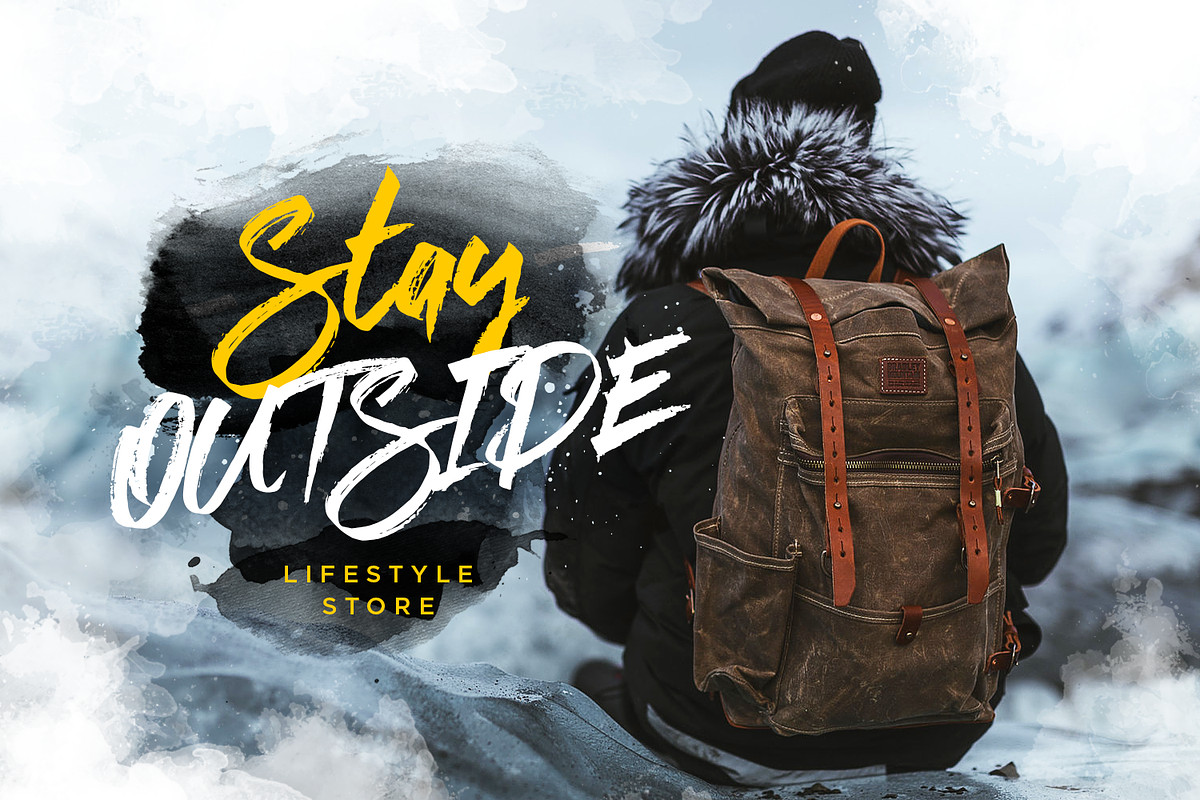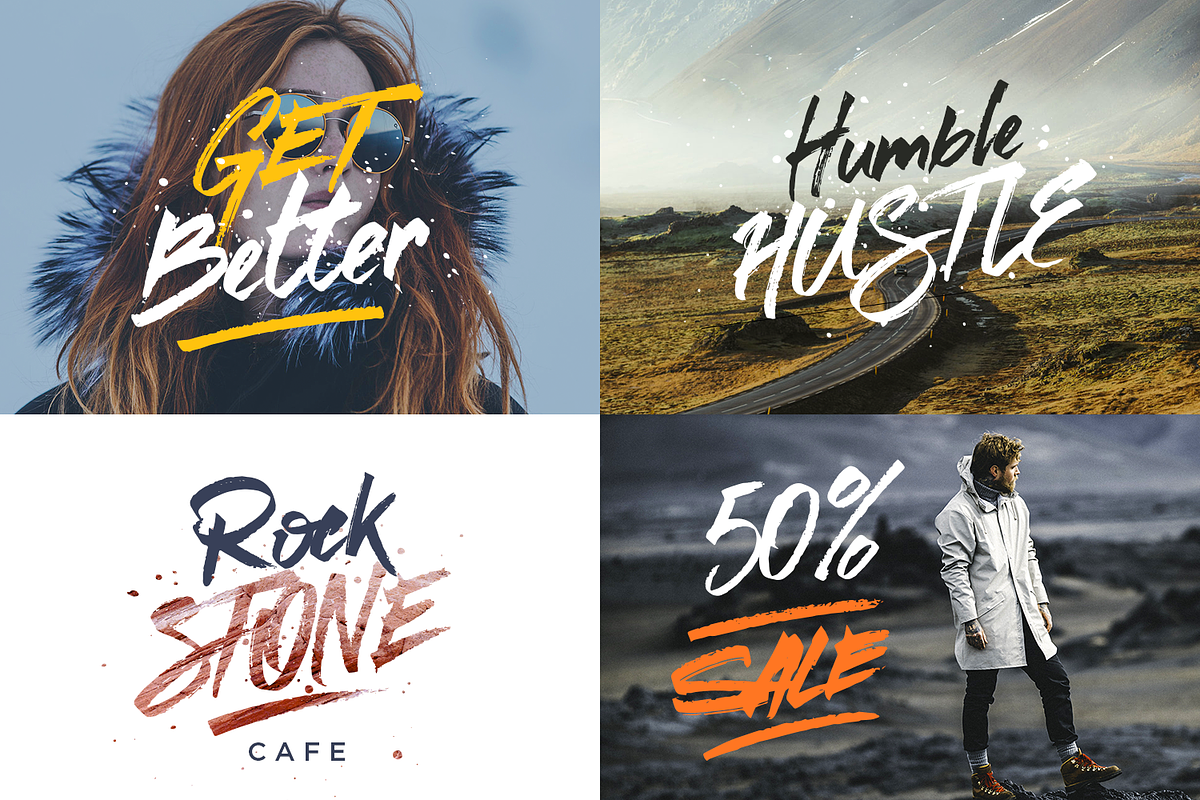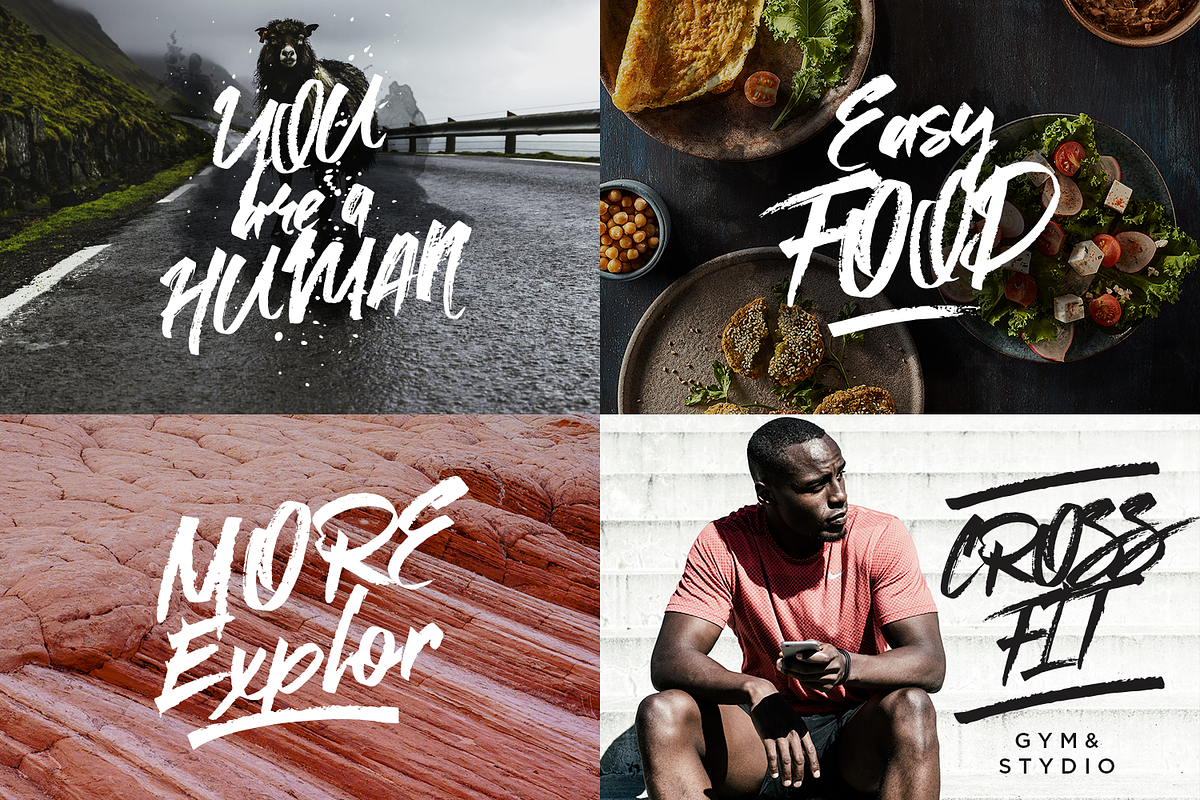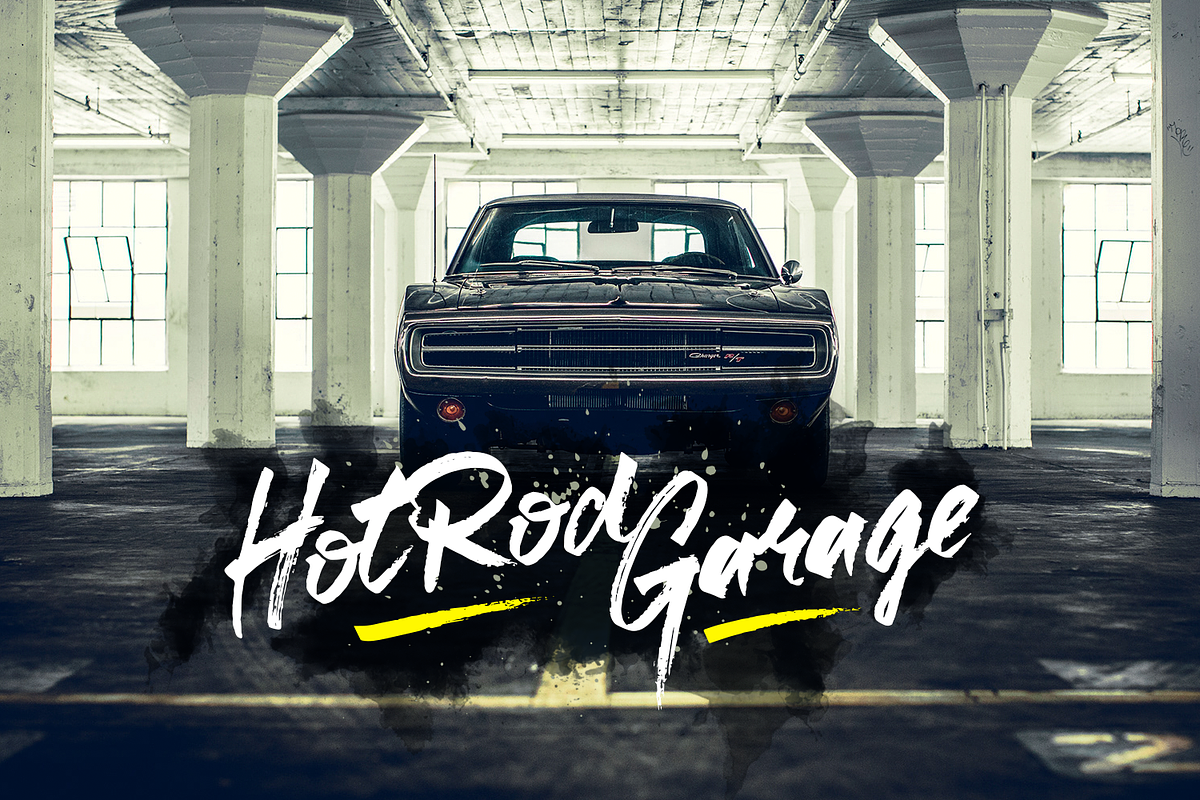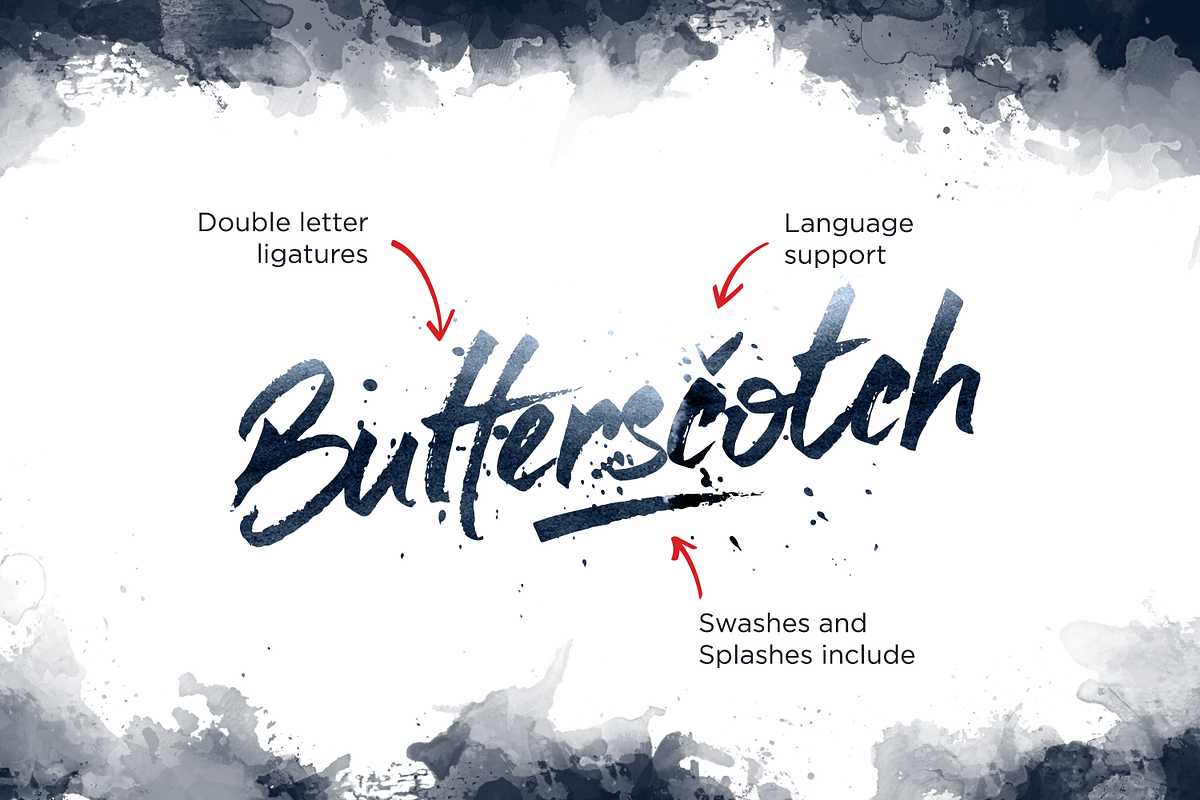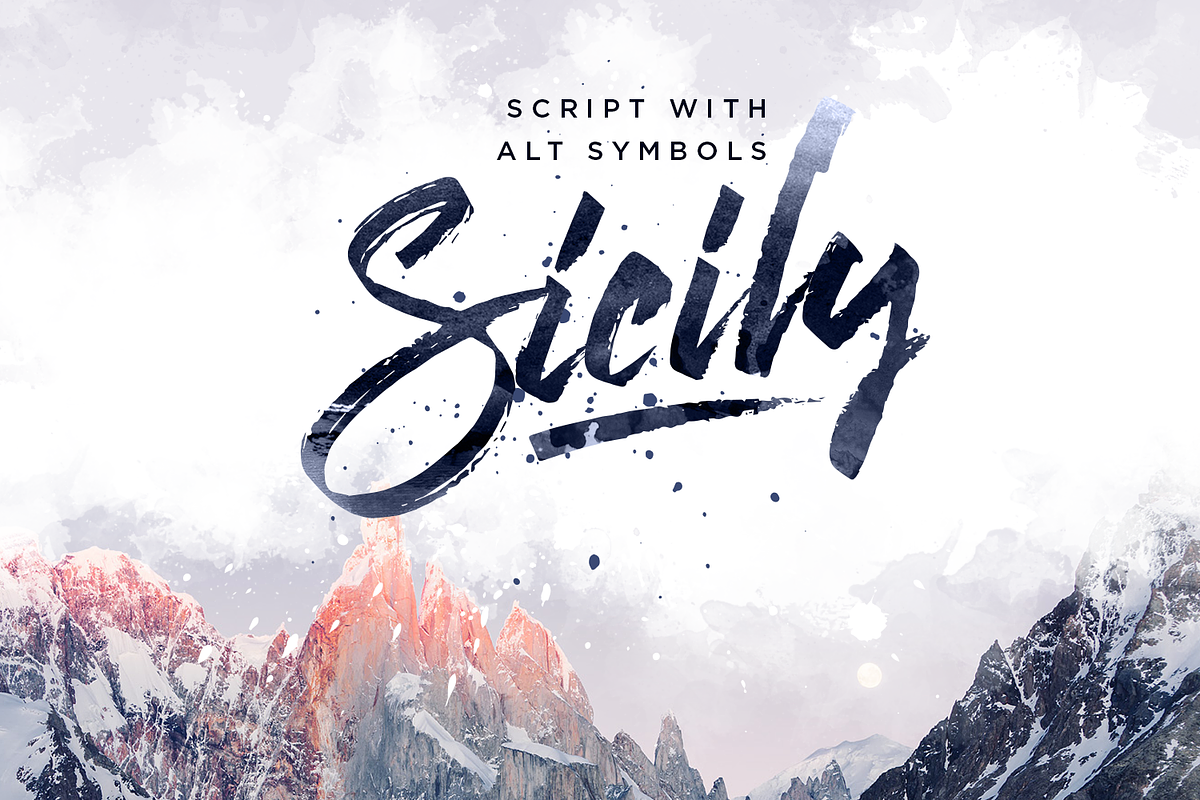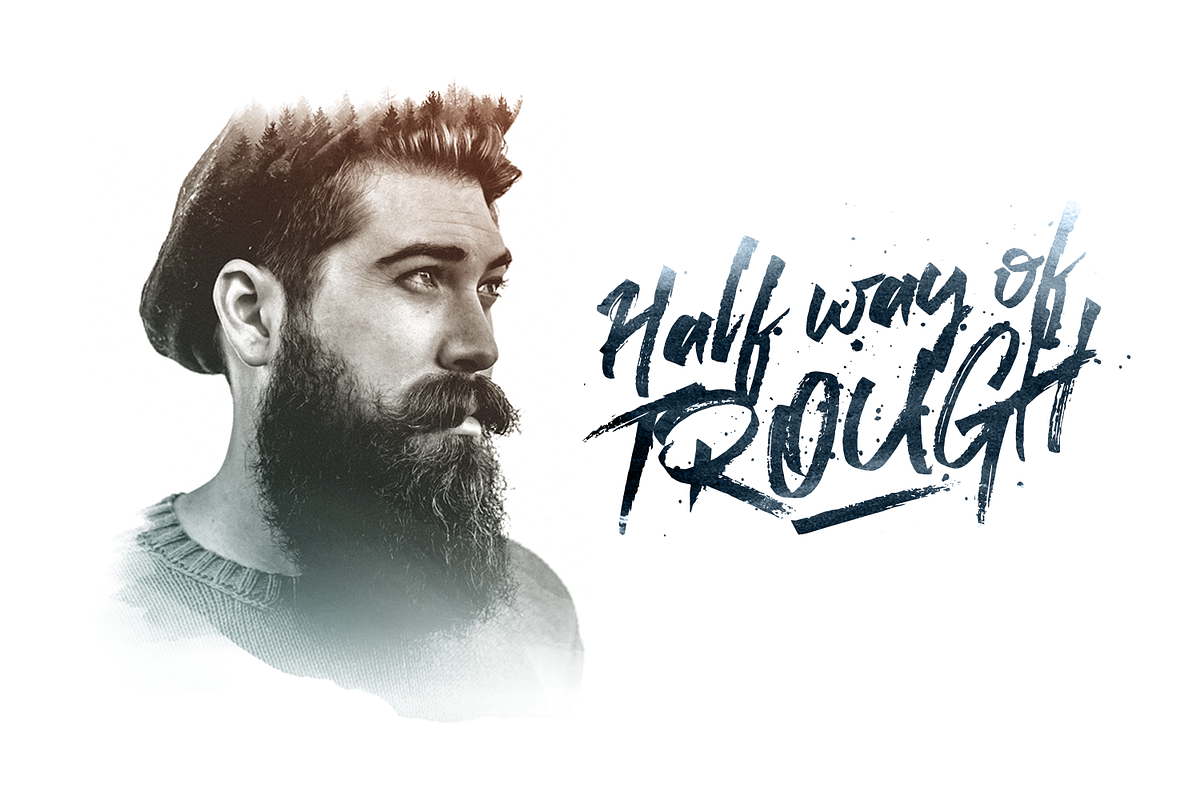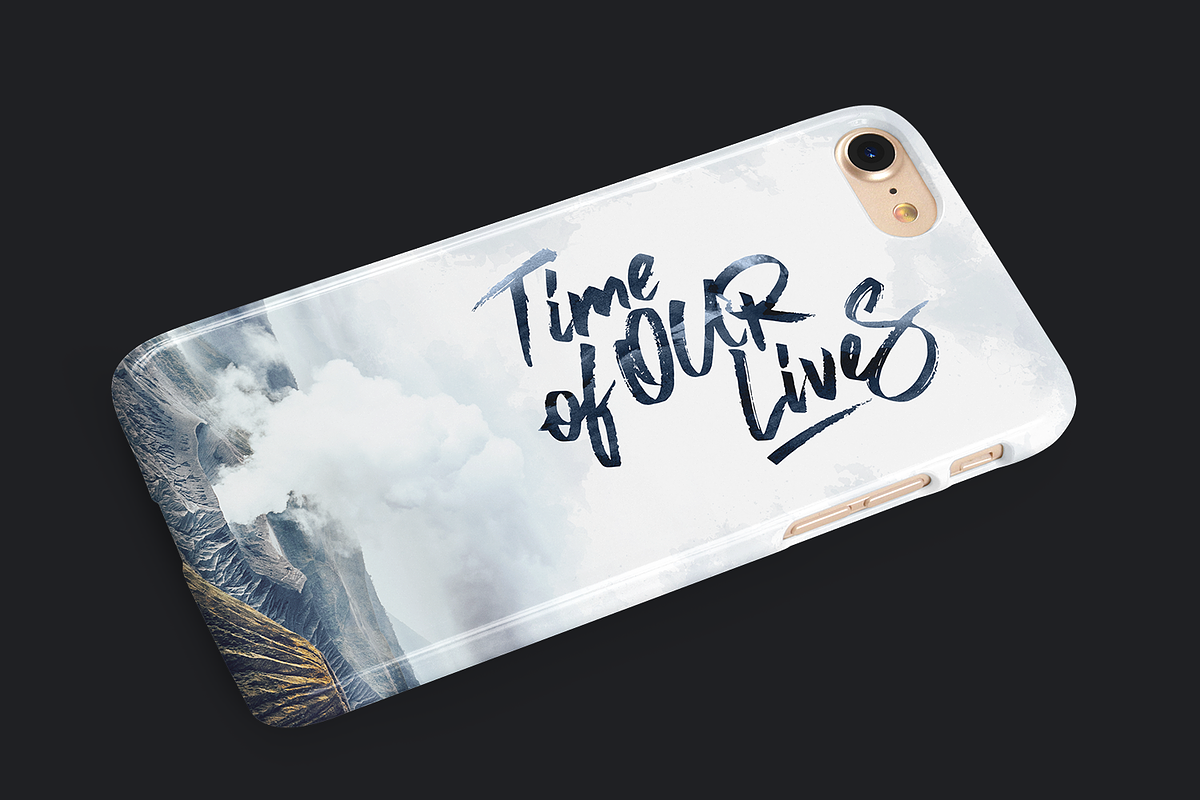
New. Sicily Script Font.
Sicily is Handmade Font Brush, with combination lifestyle and street-wise brush font. With extra attention to quick strokes and sharp details, Sicily to deliver a message expressly and quickly, ideal for logos, apparel, quotes, product packaging, or anything which needs a typographic turbo-boost.
You can mixing up both upper and lowercase characters in a word to achieve the best text layout!
Multilanguage Support